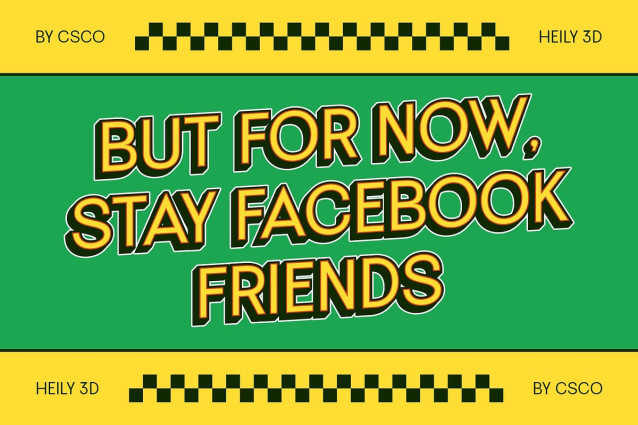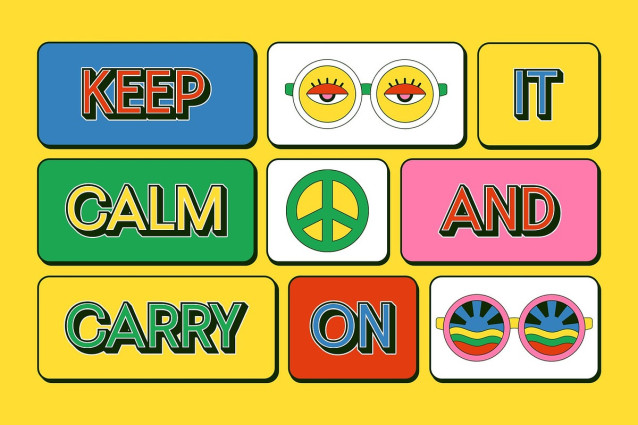
Heily 3D Font
Heily 3D Font is a modern sans-serif font that harmonizes grotesque style with clean geometric precision. Designed to deliver a sharp, structured appearance, its letterforms are refined and minimal, making it ideal for contemporary design needs. The added 3D effect transforms this clarity into a visual spectacle, giving your typography depth and bold presence.
Grotesque Form with Geometric Balance Heily 3D draws inspiration from classic grotesque fonts, known for their neutral tone and versatility. Combined with modern geometric structures, it creates a timeless yet progressive character—perfect for layouts that require visual clarity with a touch of design sophistication.
Dynamic 3D Effect for Visual Depth The integrated 3D effect adds an extra layer of dimension, making each letter pop with clarity and movement. This striking feature is especially effective in futuristic visuals, high-impact headlines, and branding materials that need to command attention and communicate innovation.
Perfect for Digital and Futuristic Design Heily 3D excels in digital branding, UI/UX projects, and bold typographic displays. Its balance of professionalism and edge makes it suitable for forward-thinking companies, technology products, and creative campaigns that demand a sleek, modern aesthetic.